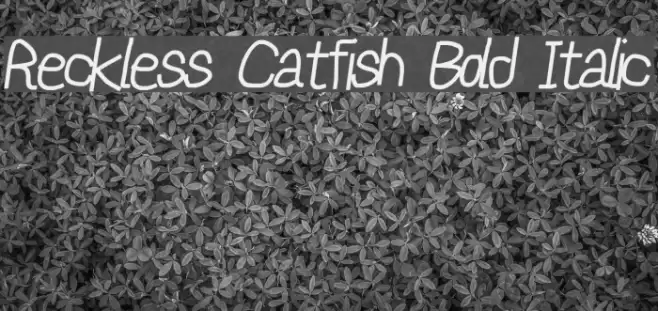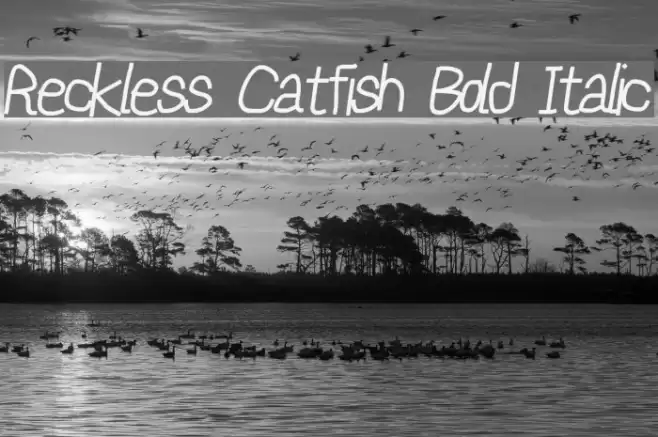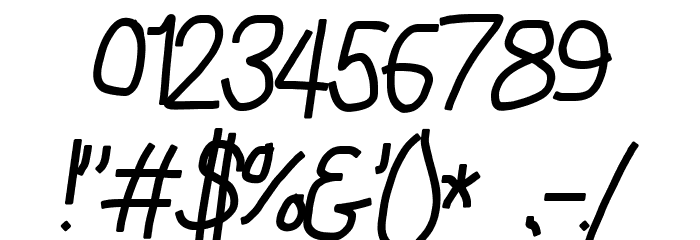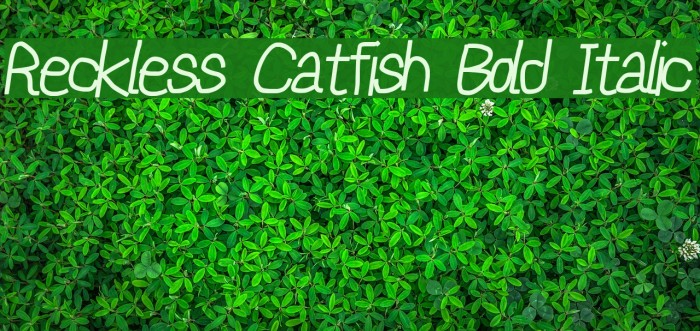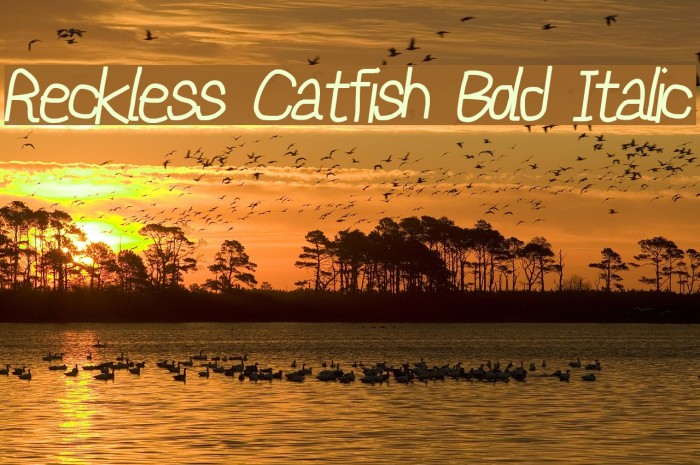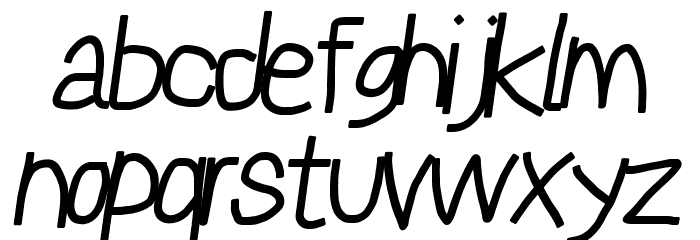
Reckless Catfish Bold Italic Font
Reckless Catfish Bold Italic Description
This font features a bold and italicized handwritten style, characterized by its playful and energetic appearance. The letters are slightly slanted, adding a dynamic feel to the text. The strokes are thick and consistent, providing a strong visual impact. The uppercase and lowercase letters maintain a cohesive style, with rounded edges and a casual flair. Numbers and special characters follow the same design principles, ensuring uniformity across all elements. This font is ideal for projects that require a personal touch or a sense of informality.
A bold, italic handwritten font with a playful and dynamic style from Uncategorized fonts.
- Proposed Projects: Great for greeting cards, playful branding, children's books, and casual invitations.
- Overall Style: Playful
- Use Case: Headlines, Logos, Informal Text